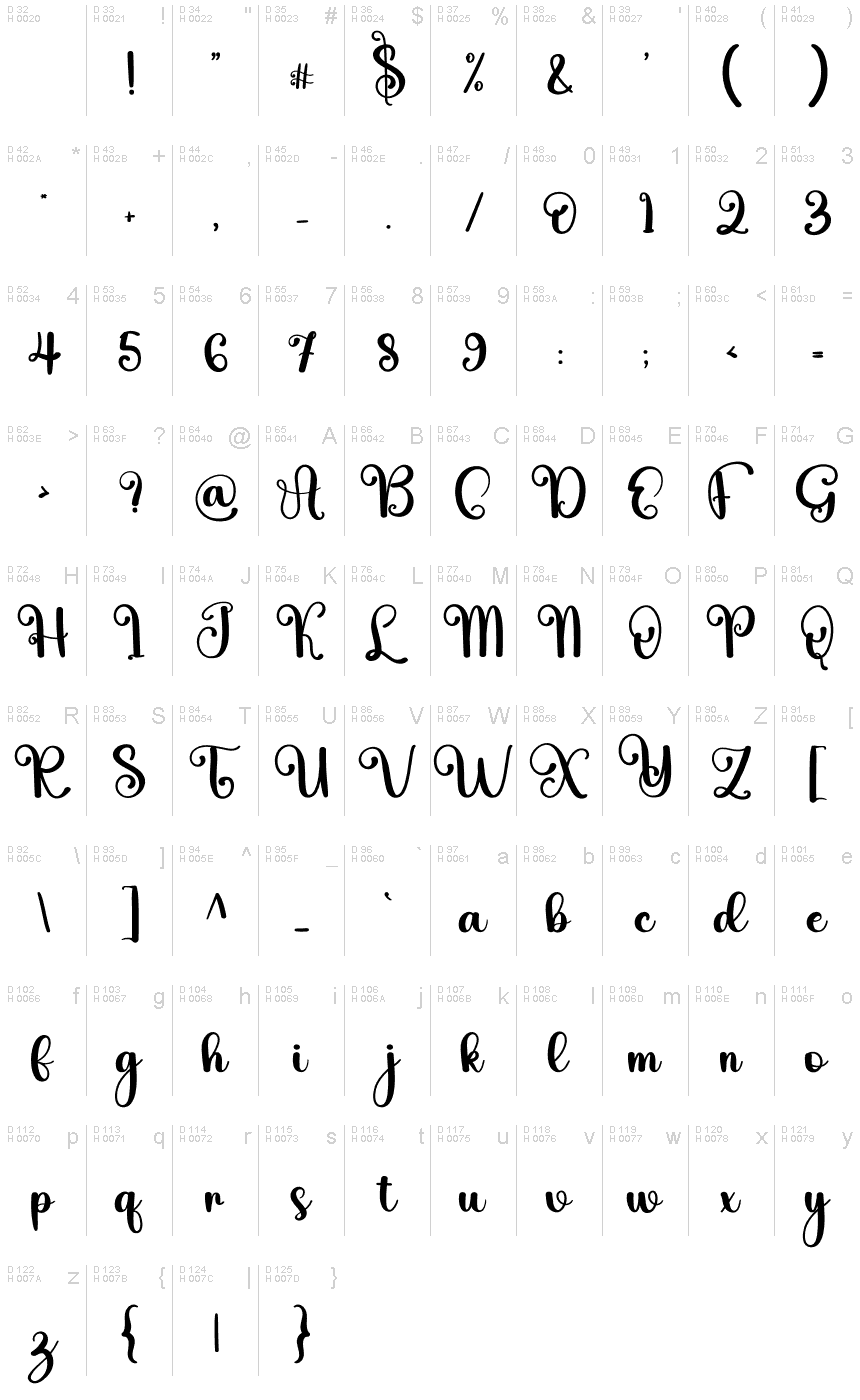
Janggly
Janggly, a mesmerizing creation by Harlek Studio, is a captivating curly calligraphy font that adds an enchanting touch to any project.
Its graceful swirls and elegant strokes make it perfect for wedding invitations, creating a romantic atmosphere with every word. Janggly's whimsical charm also shines in children's book illustrations, bringing characters to life with its playful personality. For those seeking a unique and expressive display font, Janggly's curly calligraphy style effortlessly enhances greeting cards and posters, adding a touch of sophistication to any message.
Let your imagination run wild with Janggly!